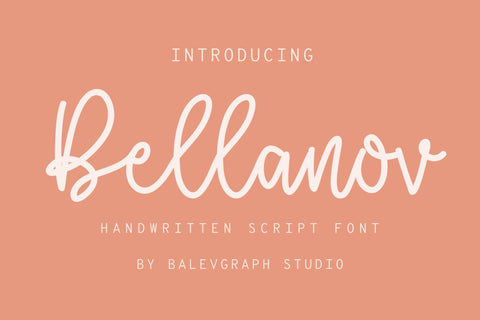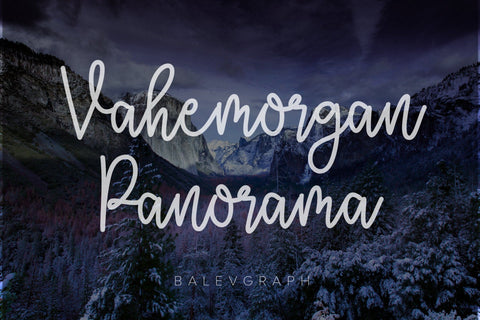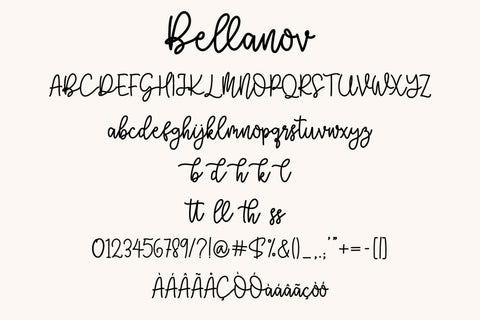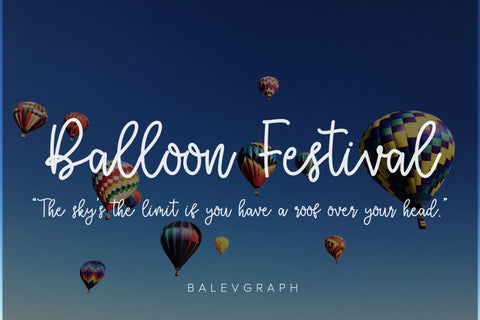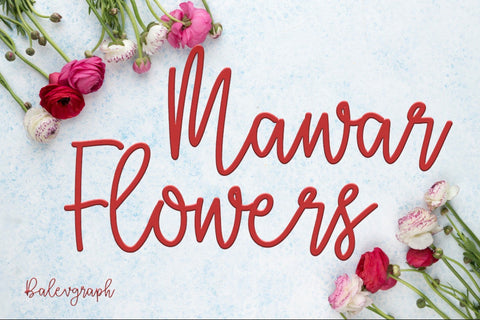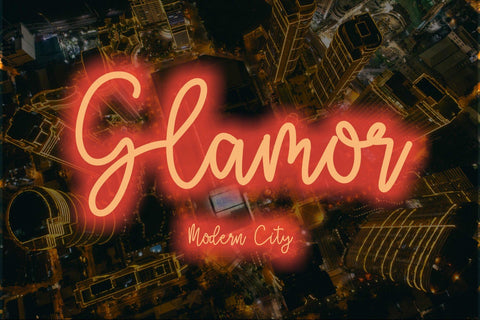
Bellanov - Handwritten Script Font
Bellanov is a handwritten script font that has its own uniqueness.
Bellanov would perfect for photography, watermark, social media posts, advertisements, logos & branding, invitation, product designs, label, stationery, wedding designs, product packaging, special events or anything that need handwriting taste.
- Tone of glyphs (include Uppercase, Lowercase, Numerals & Punctuations, Stylistic Set, Ligature, Multilingual)